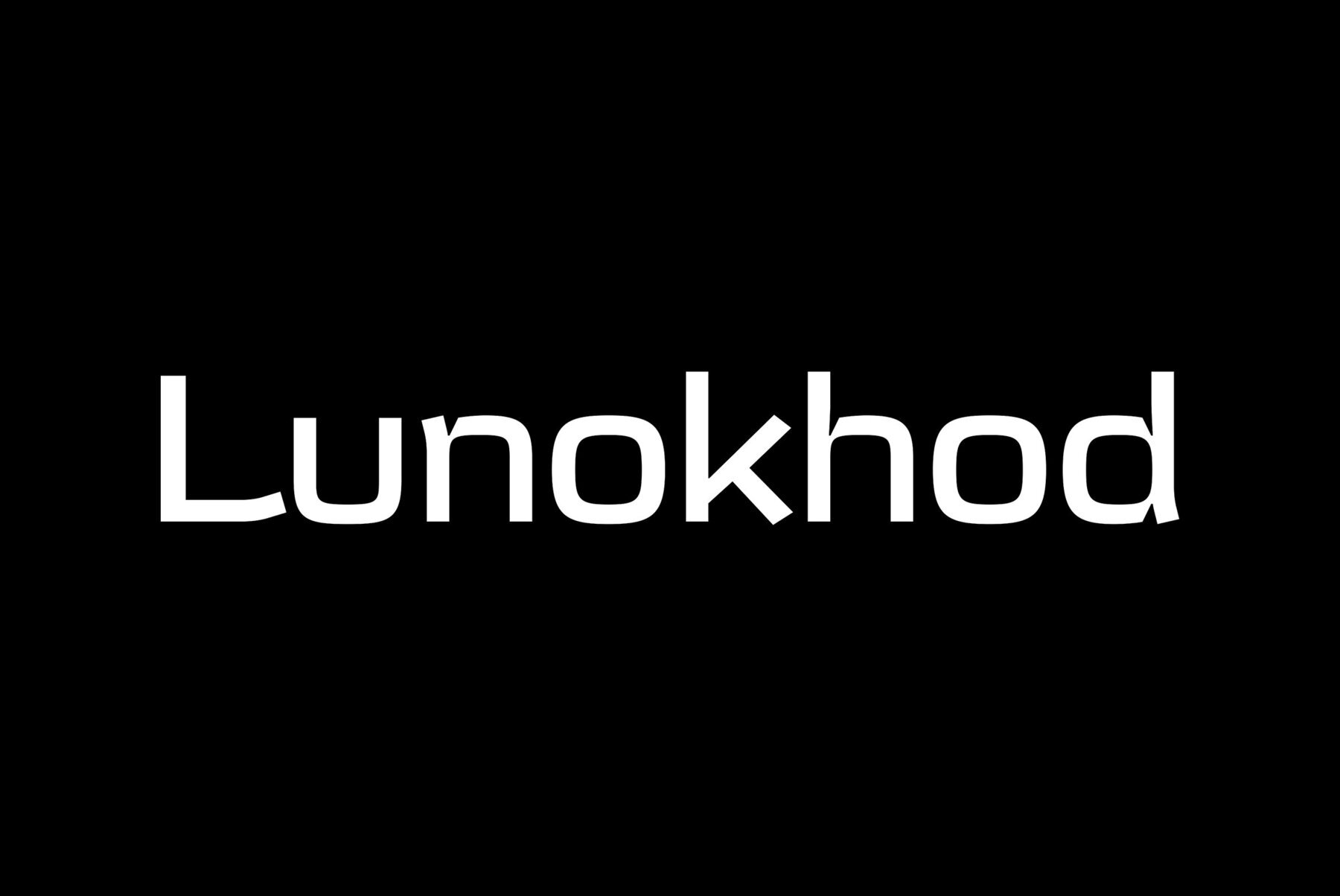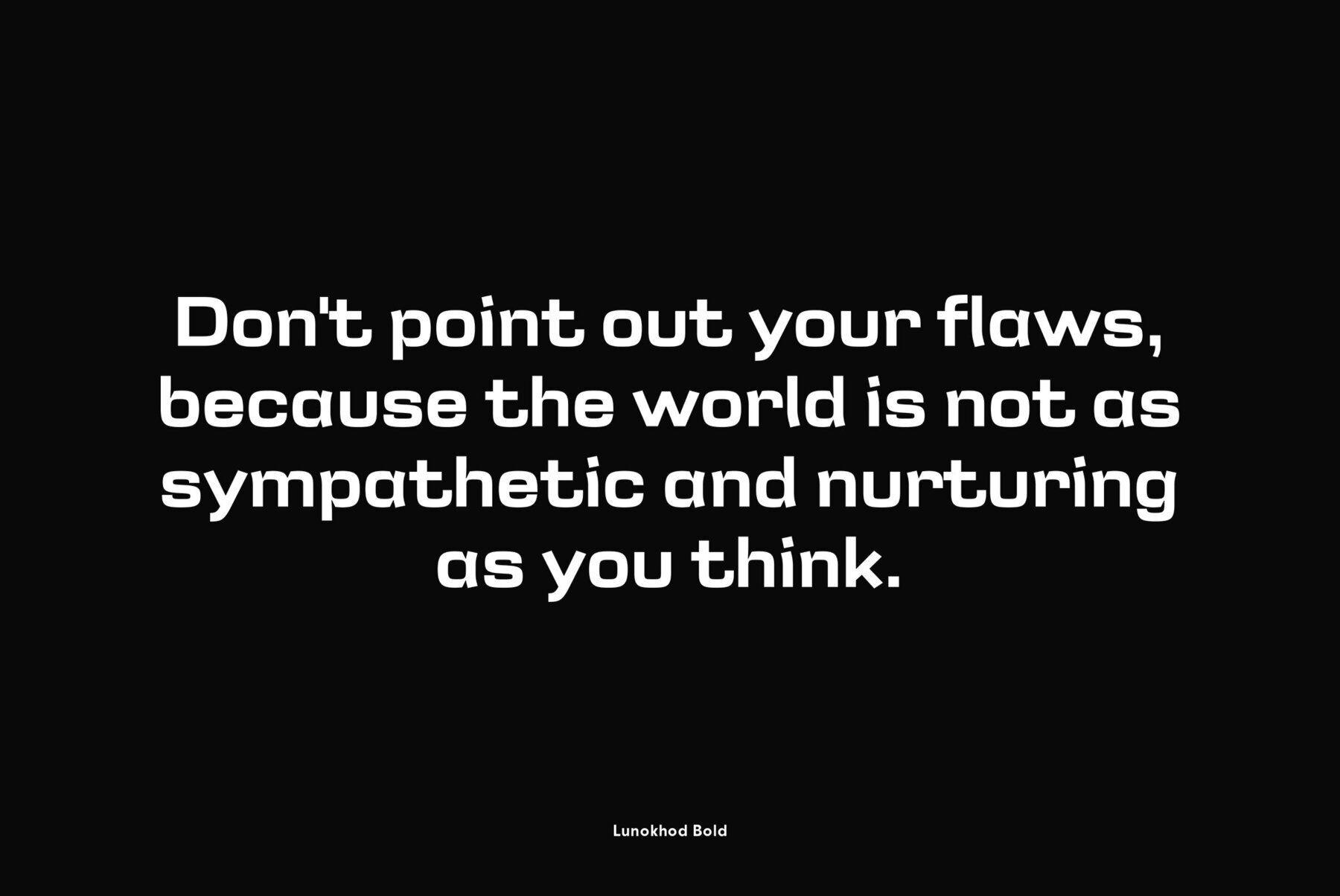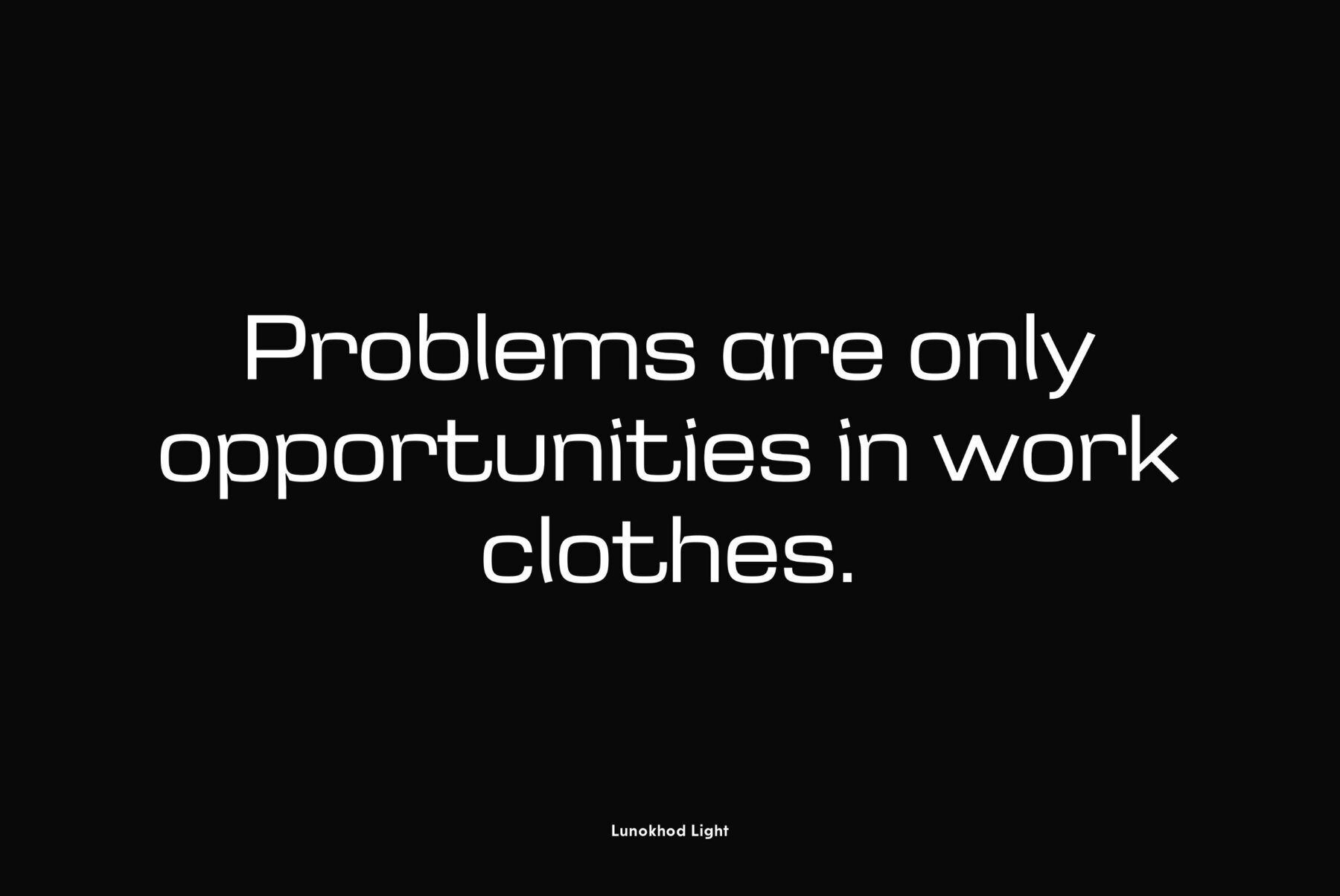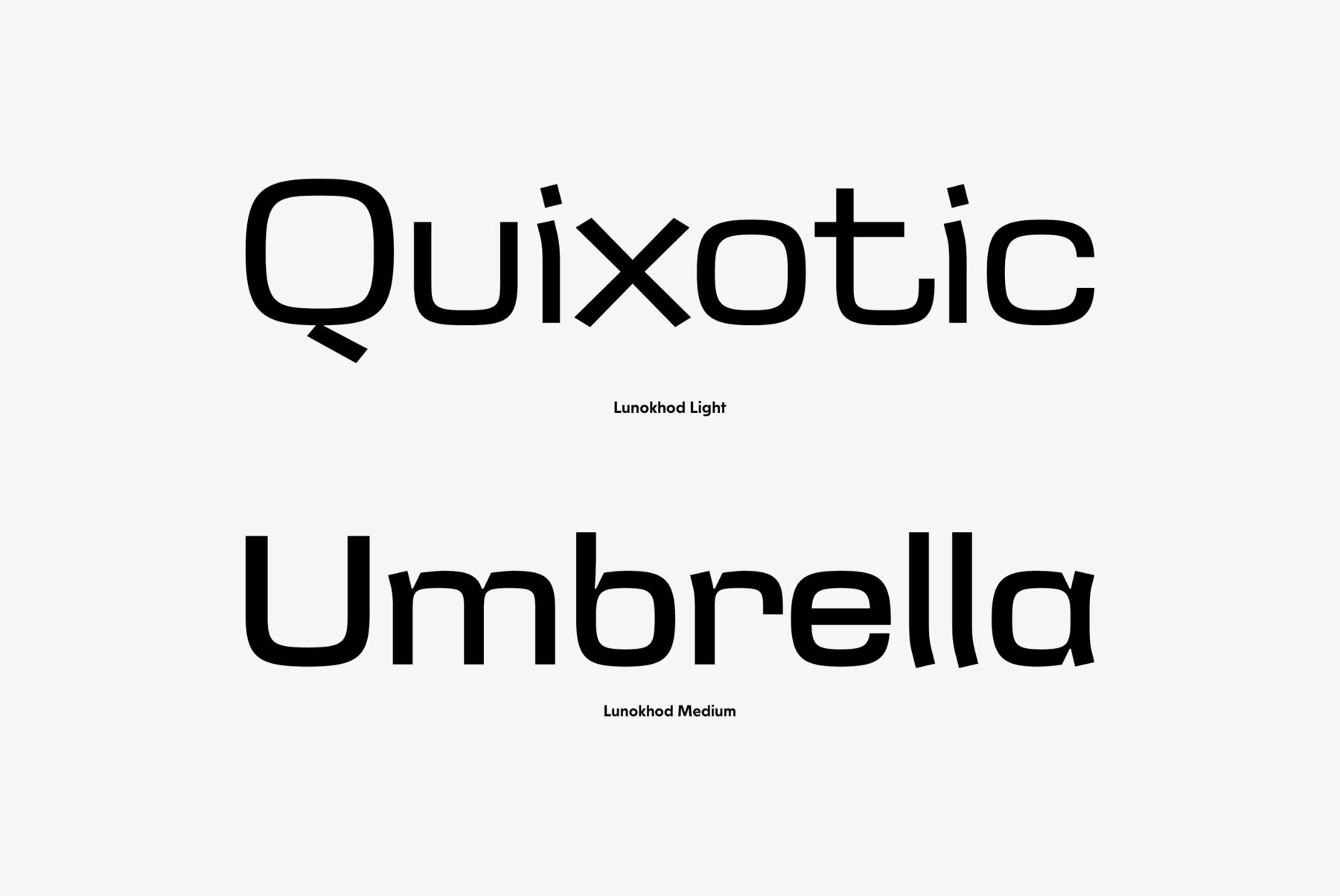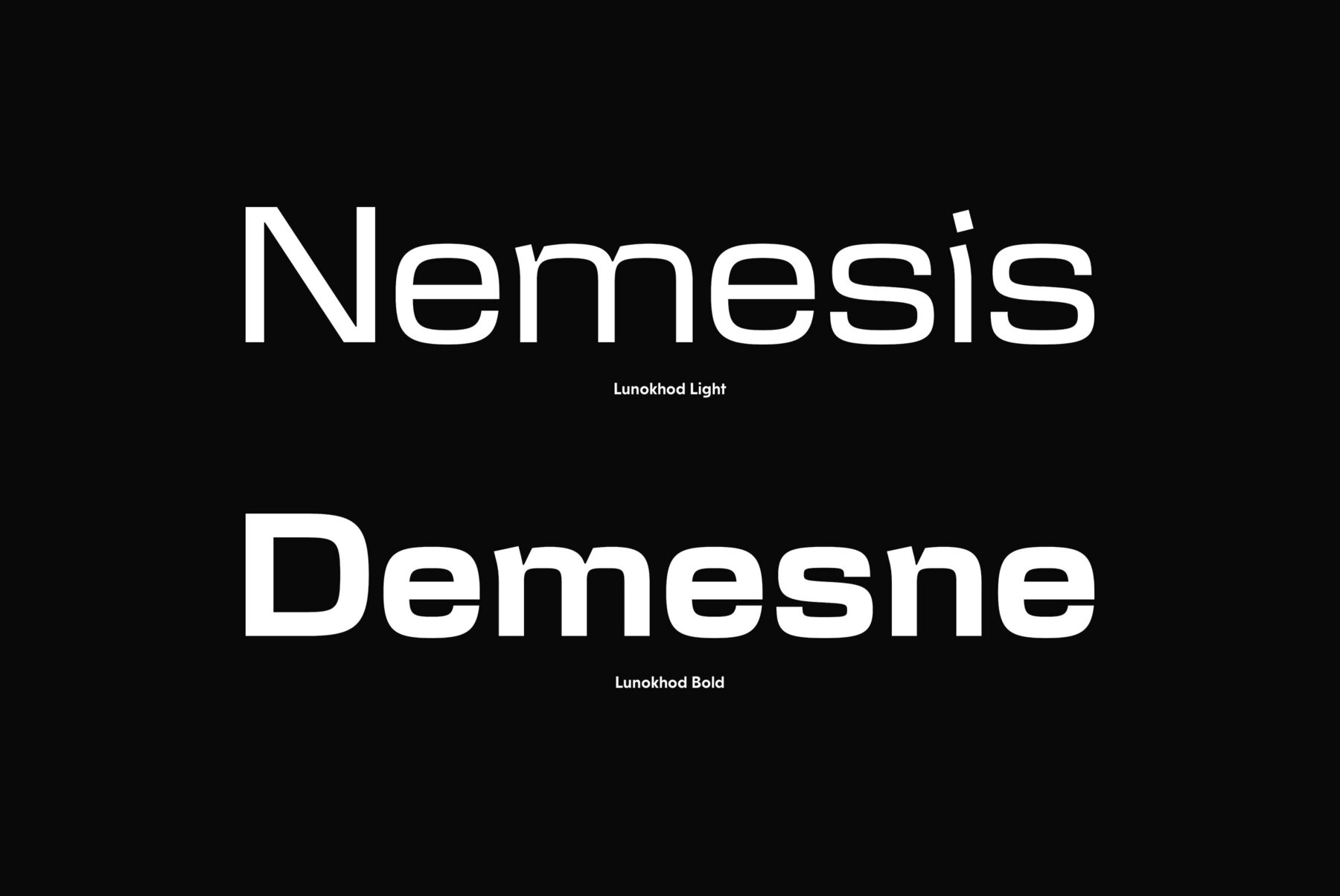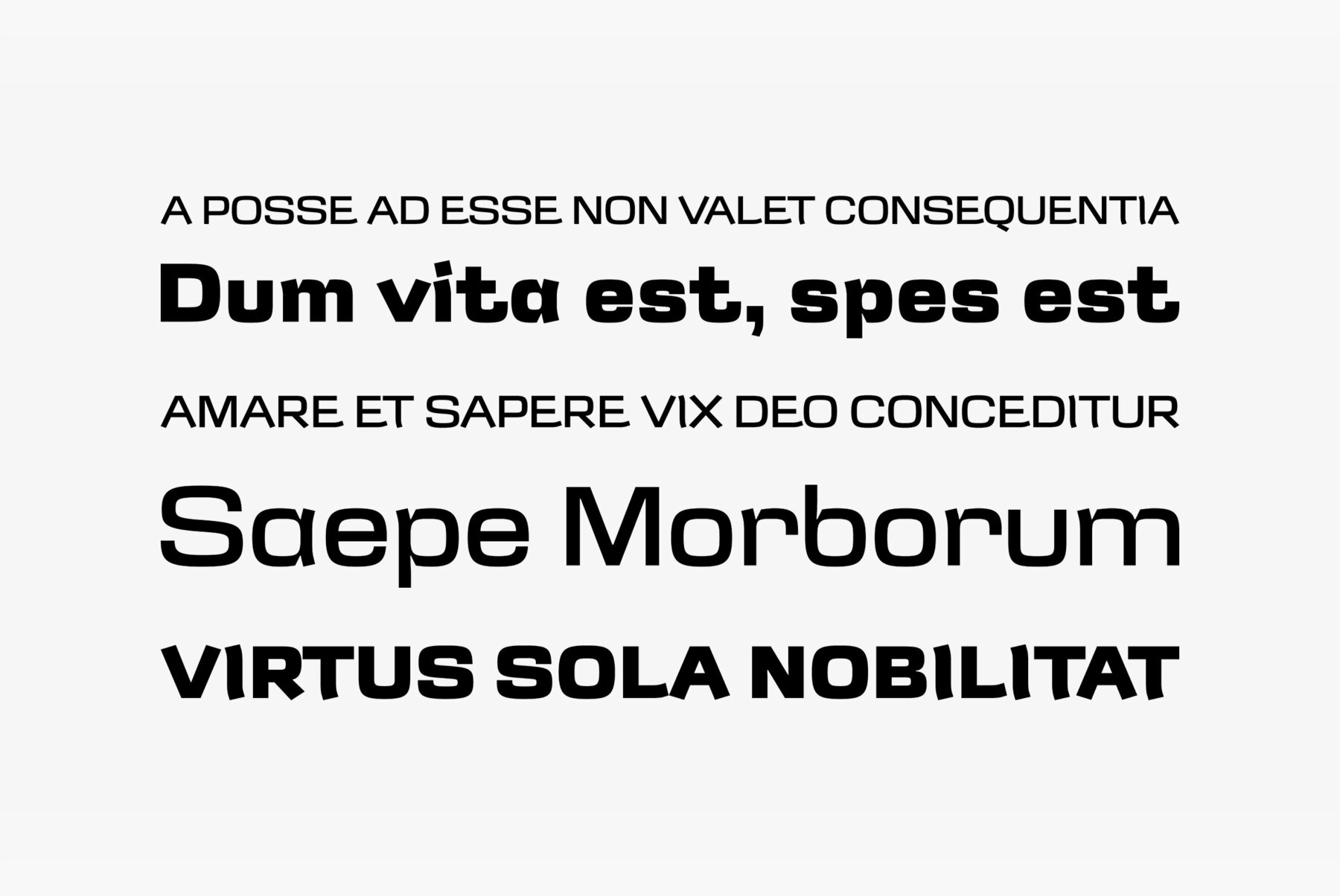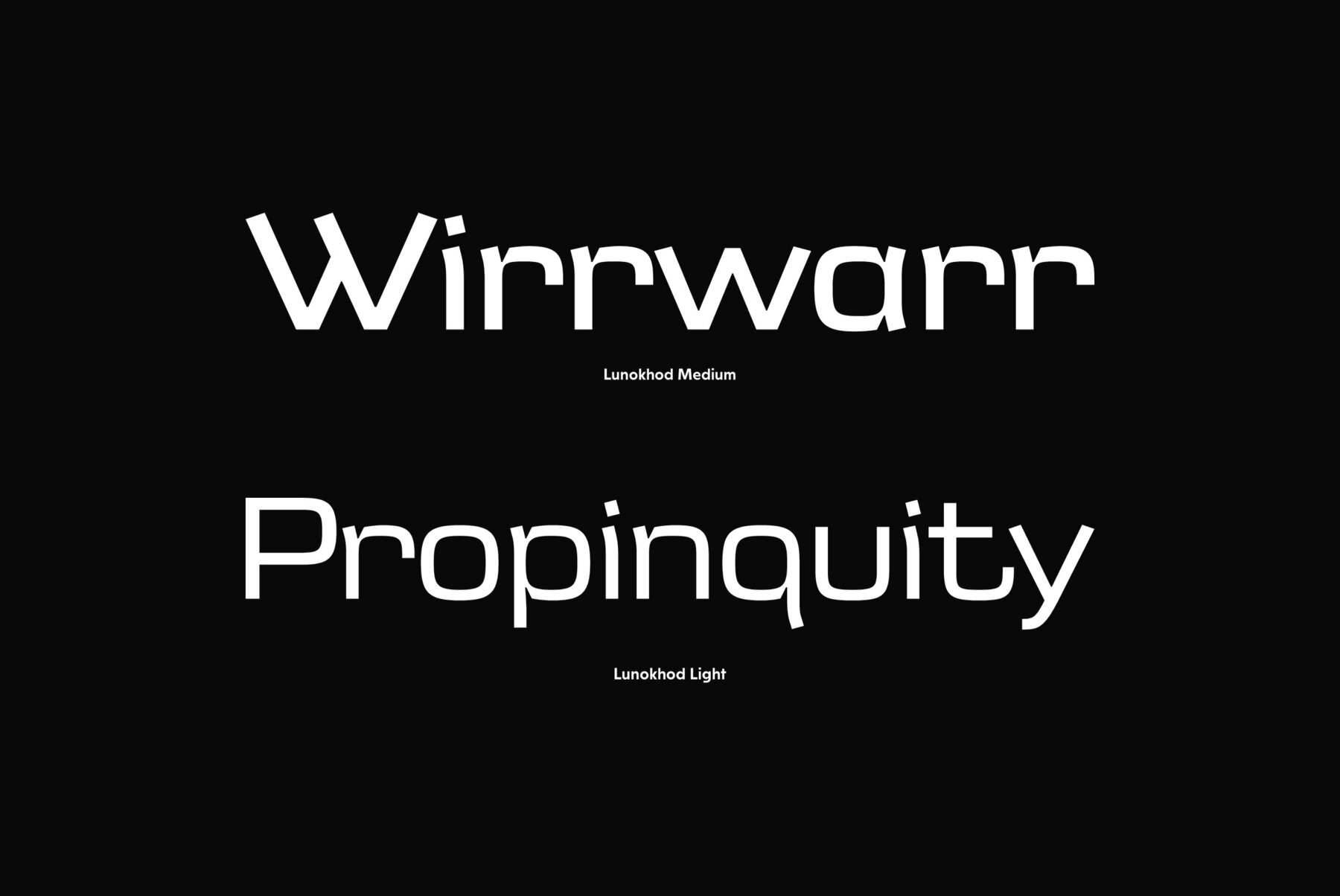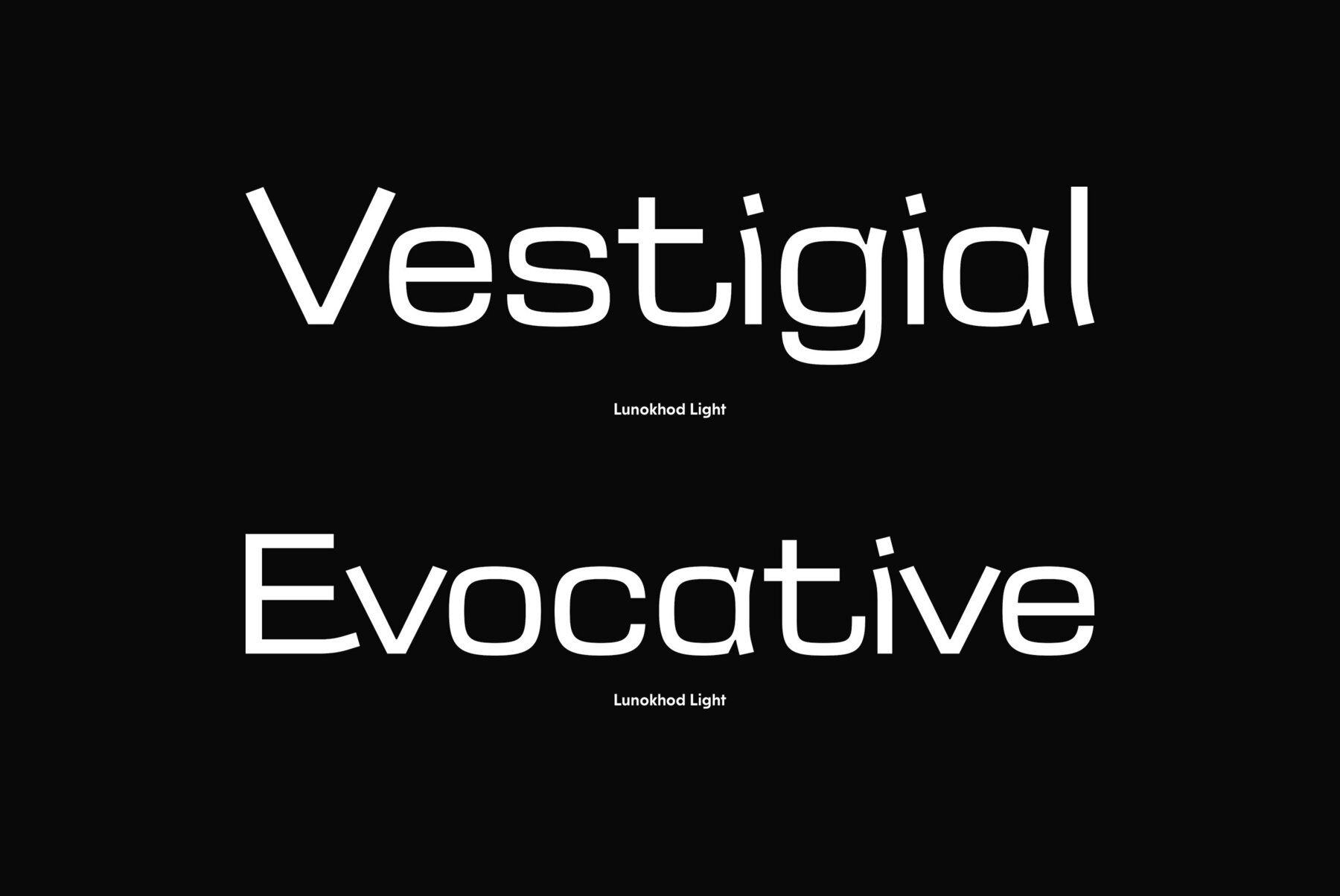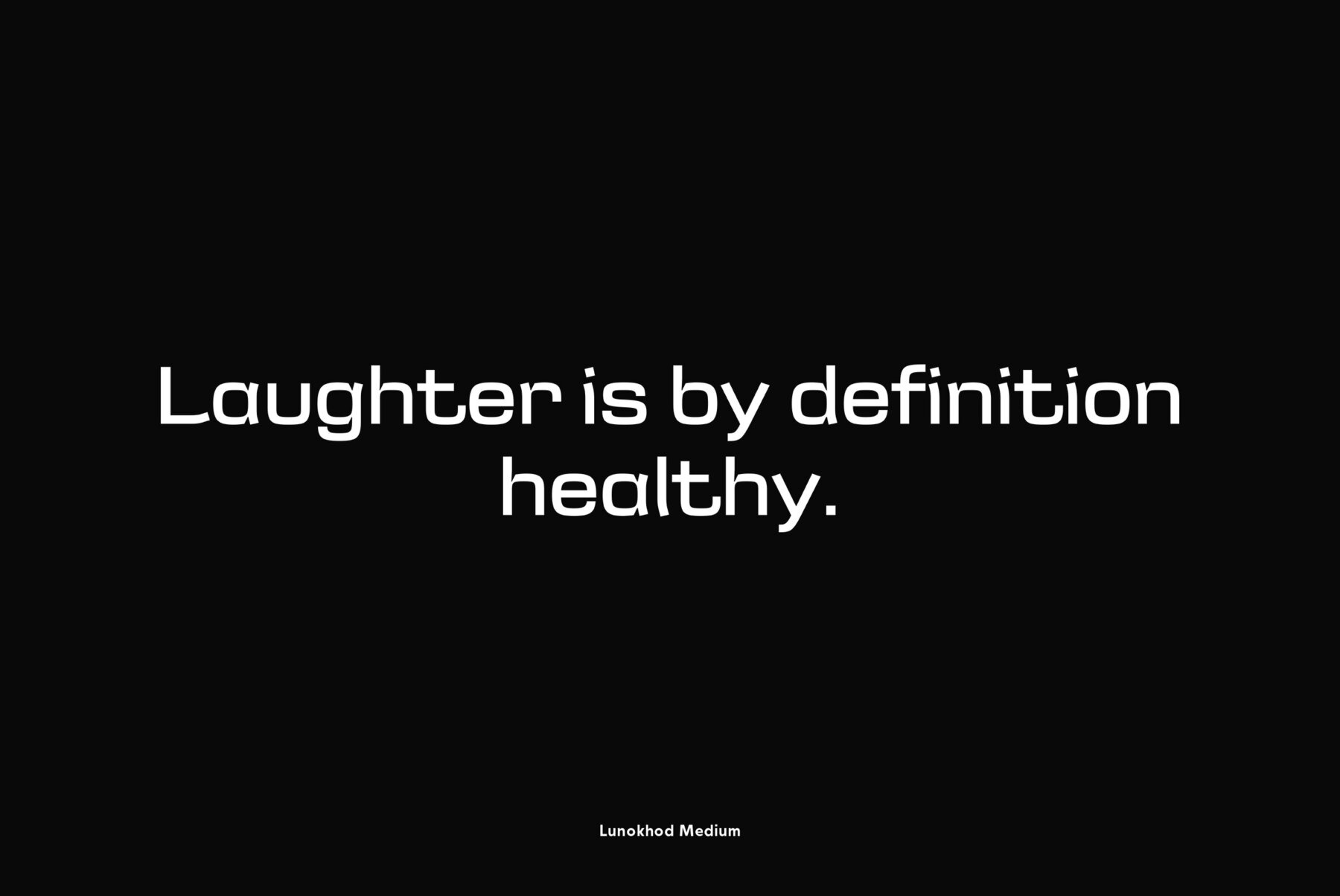
Lunokhod
Lunokhod type family (four weights) was designed by Oleg Karpinsky for ParaType in 2005. Lunokhod is an original wide sans serif with square shapes of oval glyphs. For use in display typography and for short text passages.